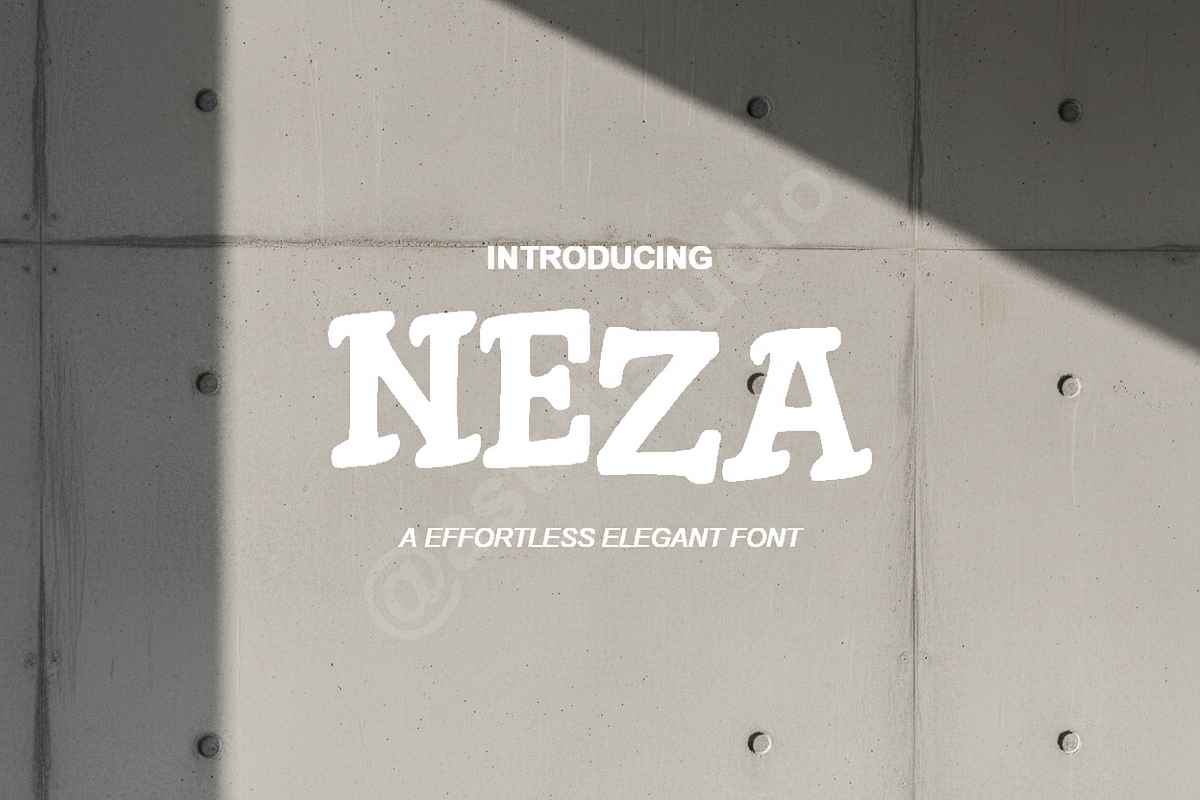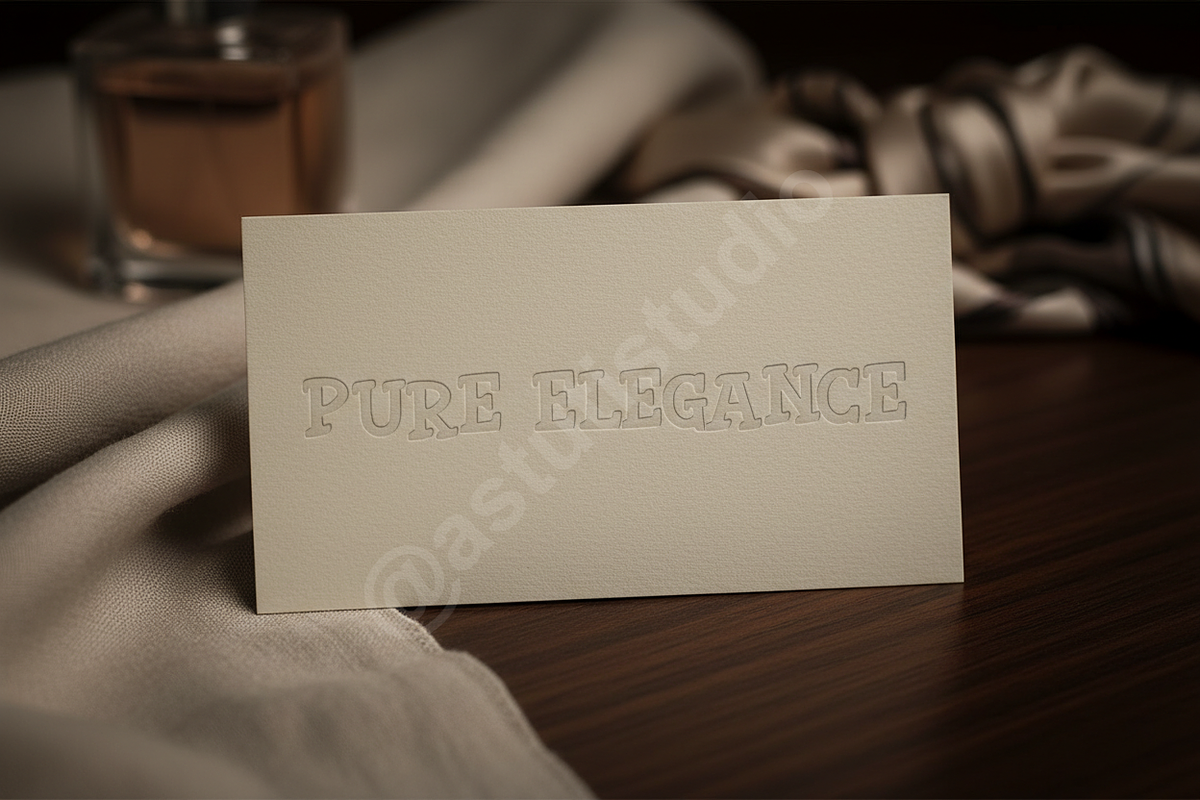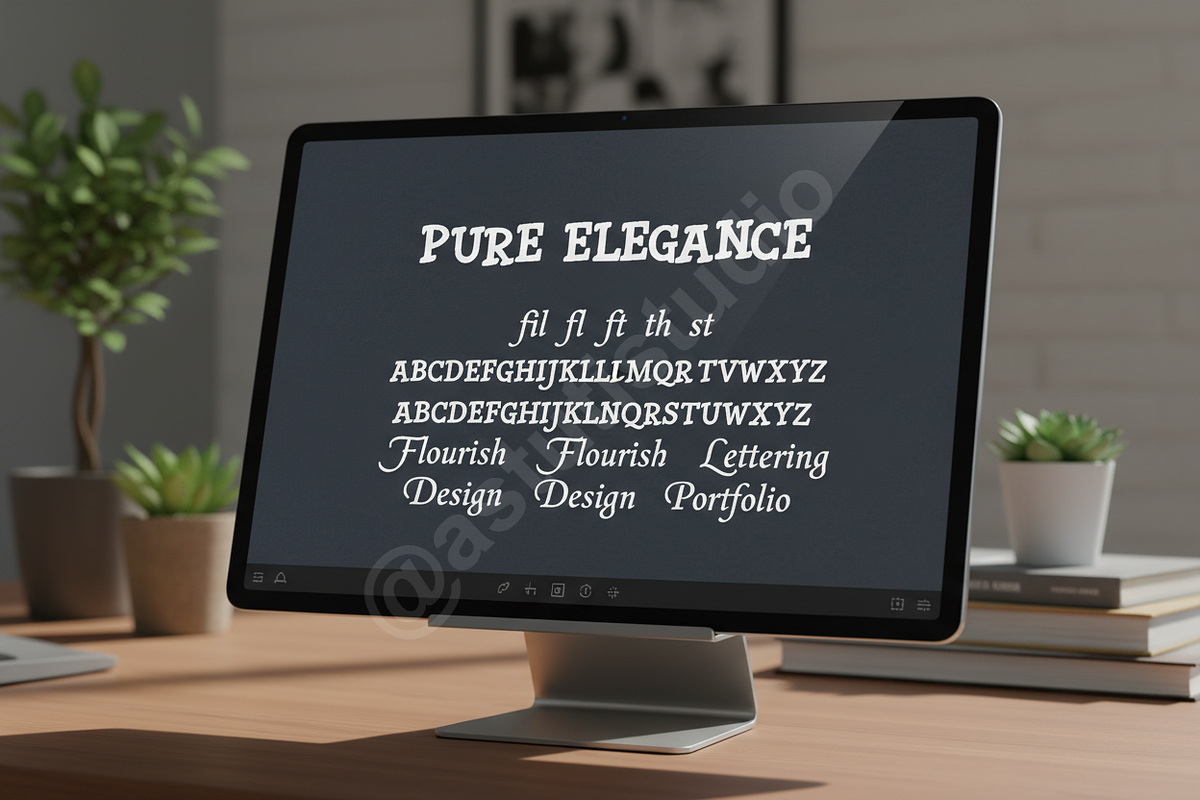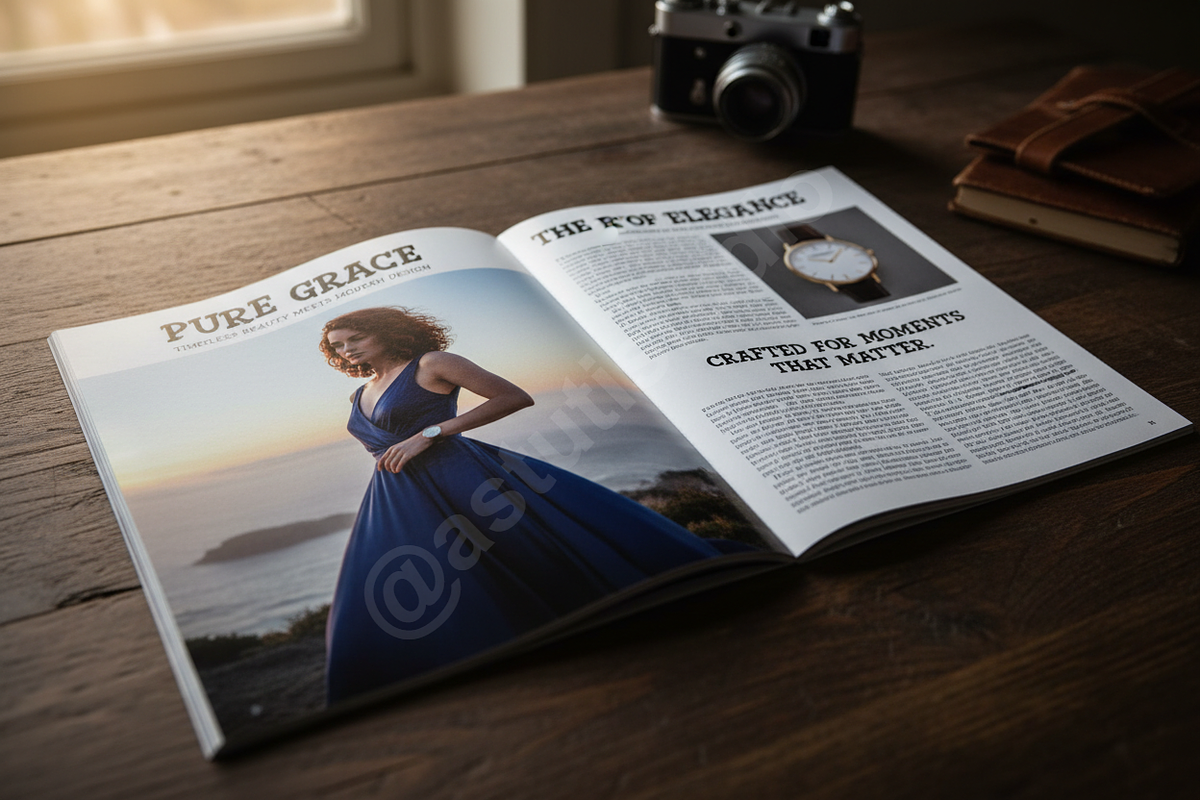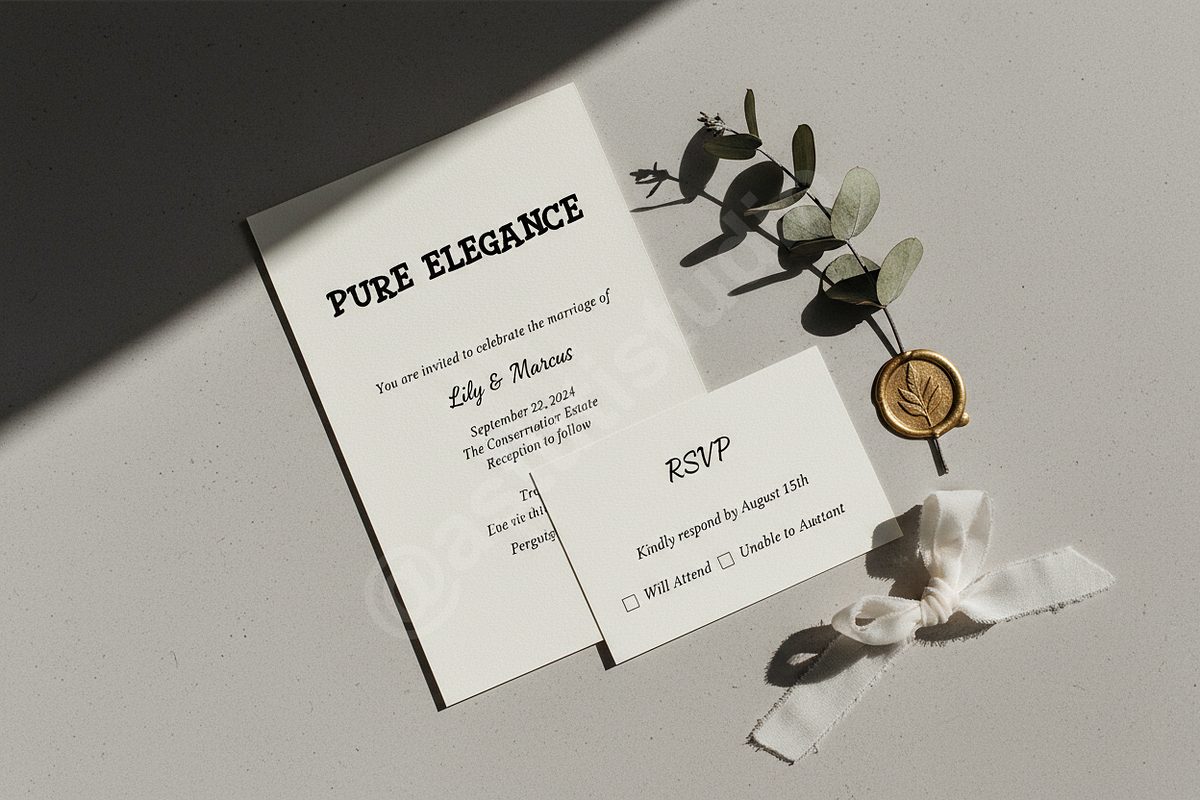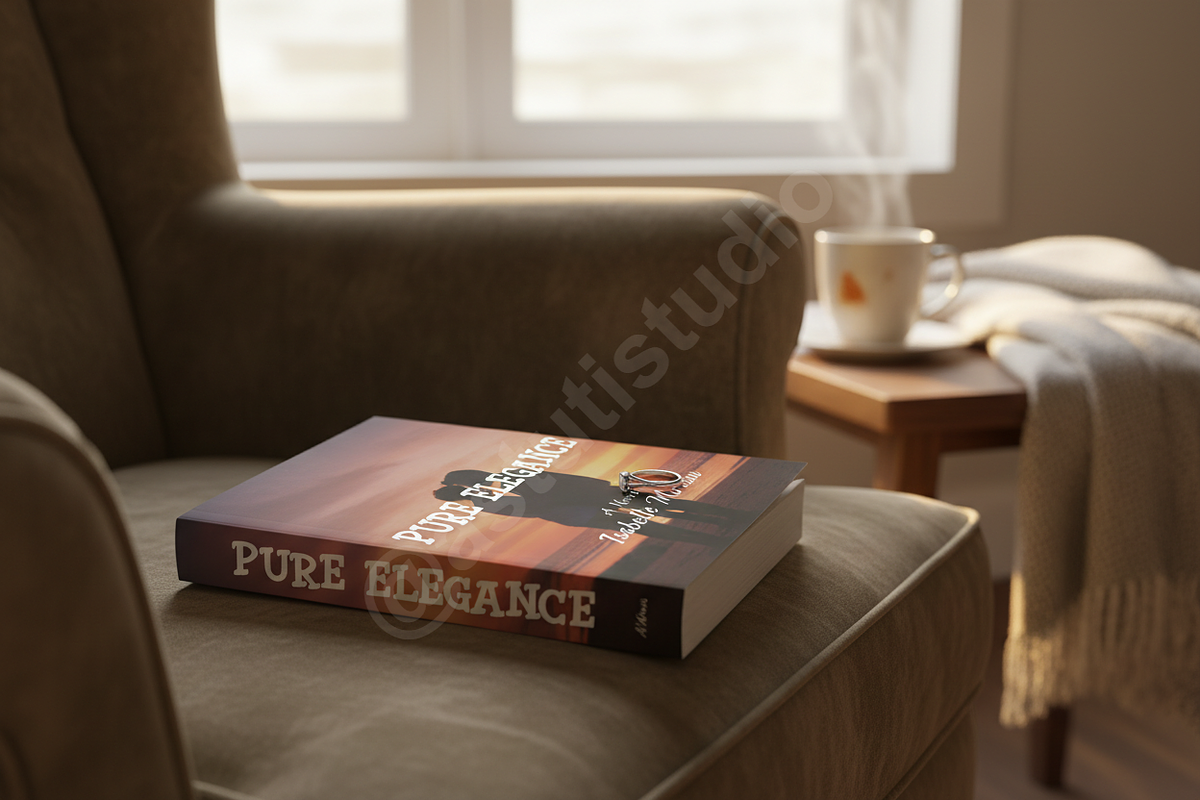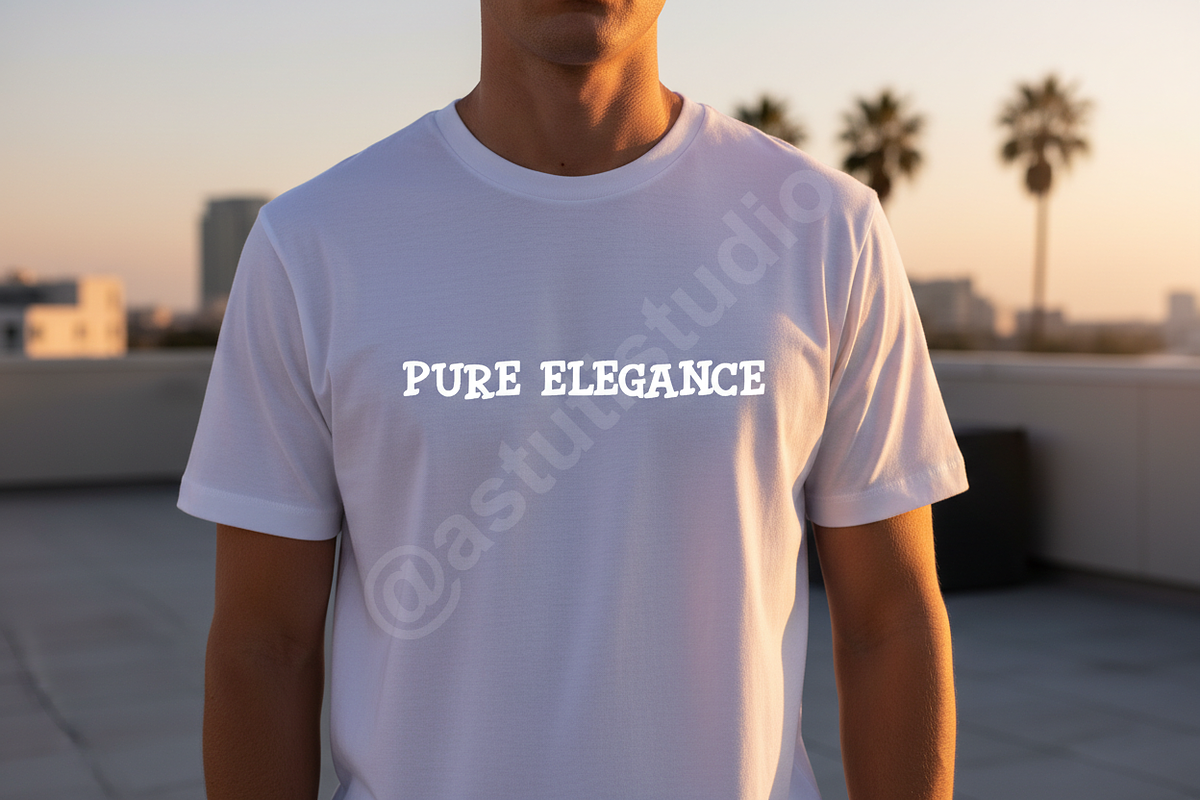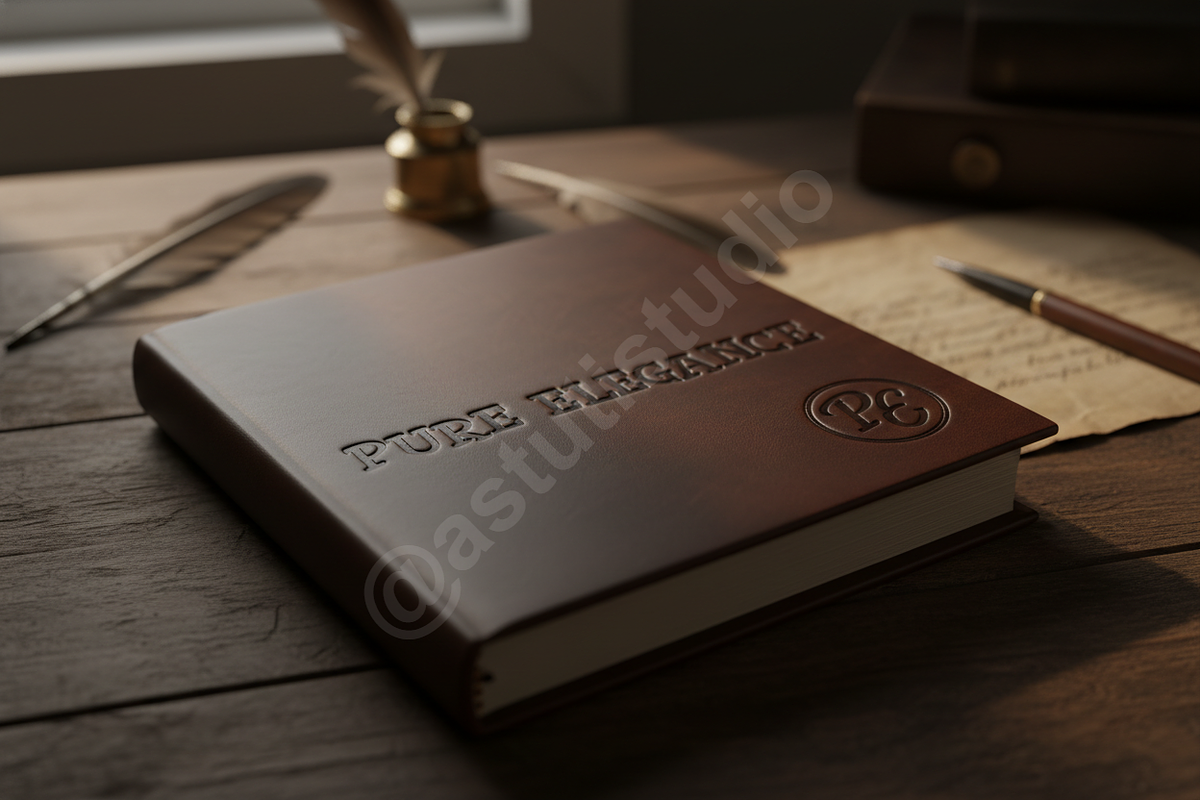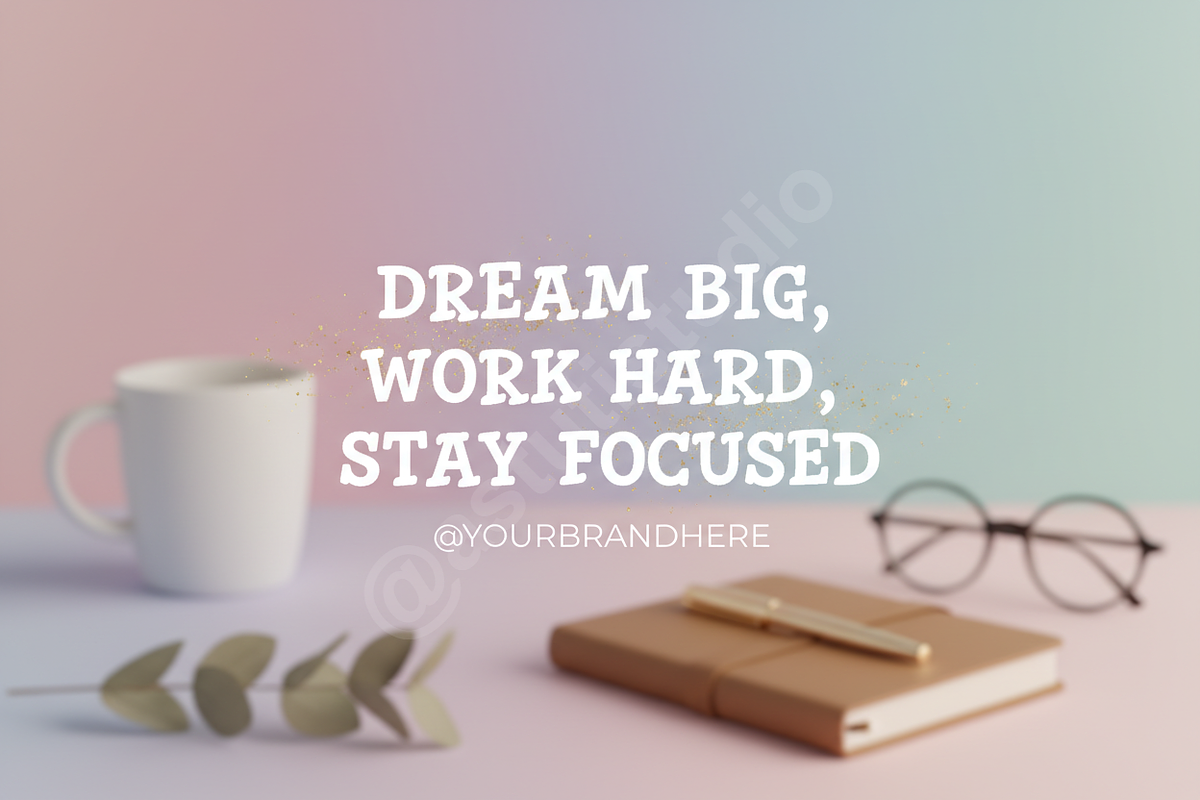
Neza - Elegant Modern Sans Serif
Introduction Neza is a premium modern sans serif designed for high-end aesthetics and timeless appeal. With its clean lines and refined geometric proportions, Neza brings an air of effortless luxury to any creative project. This typeface is meticulously crafted to meet the demands of contemporary designers who prioritize clarity, sophistication, and a professional finish.
- Refined geometric structure for optimal readability
- Extensive ligature set for unique typographic expressions
- Broad multilingual support covering Western and Central Europe
- Optimized kerning for a polished, professional look
- Ideally suited for luxury branding, editorial layouts, and high-impact social media content
- Complete set of uppercase and lowercase characters
- Comprehensive numbers, punctuation, and symbols